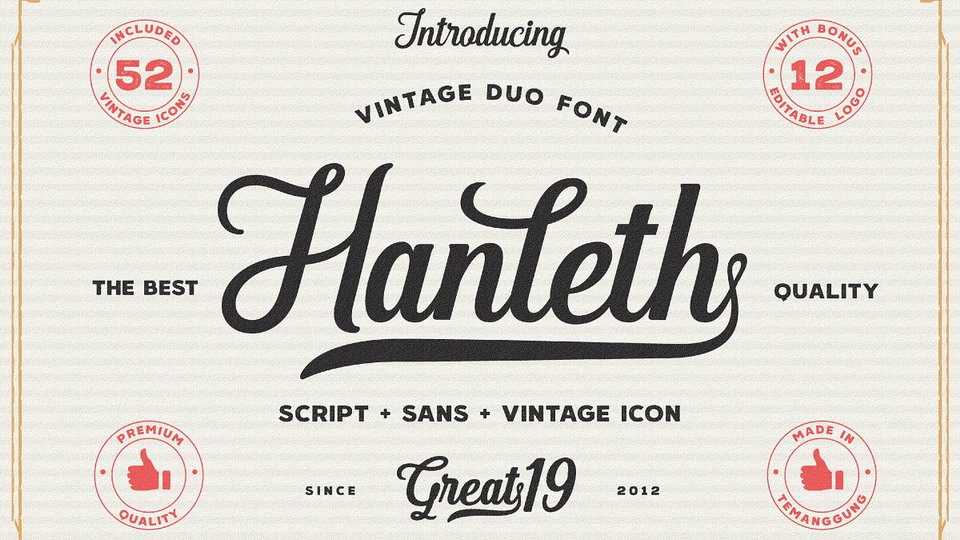
Handleth Script Font › Fontesk – Download Grátis
Download Handleth Script font, a beautiful vintage typeface inspired by old vintage script and polished with a little bit of modern style. Perfect to make logo, product packaging, header, poster, merchandise, social media & greeting cards.
Designer: Andhi Yulianto